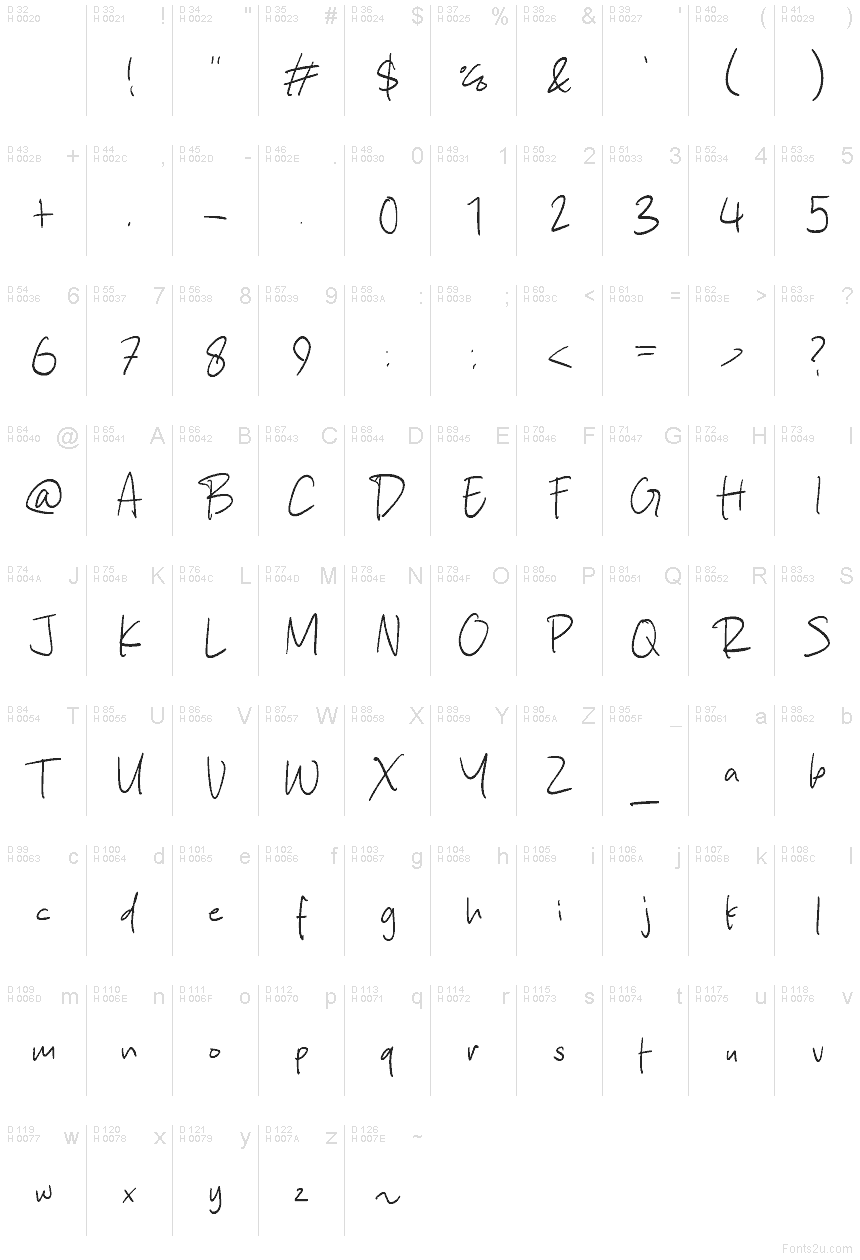
Gerady Bale
Gerady Bale font by MJType is a free handwritten font that captures the scratchy ease of a quick note jotted with a fine-tip pen. Letters lean and sway with slight irregularities, giving text a breezy, spontaneous feel while still staying clean and readable. The light, wiry strokes keep compositions airy rather than heavy, so your message feels personal without turning messy or childish.
Using Gerady Bale, you can give wedding details, quote graphics, planner pages, packaging, social posts, and blog headers a relaxed, human voice that feels genuinely written, not scripted. This free font shines at medium to large sizes where its thin lines can breathe. Pair it with a simple sans serif for body text, letting Gerady Bale handle names, short phrases, and accents that need a soft handwritten touch.